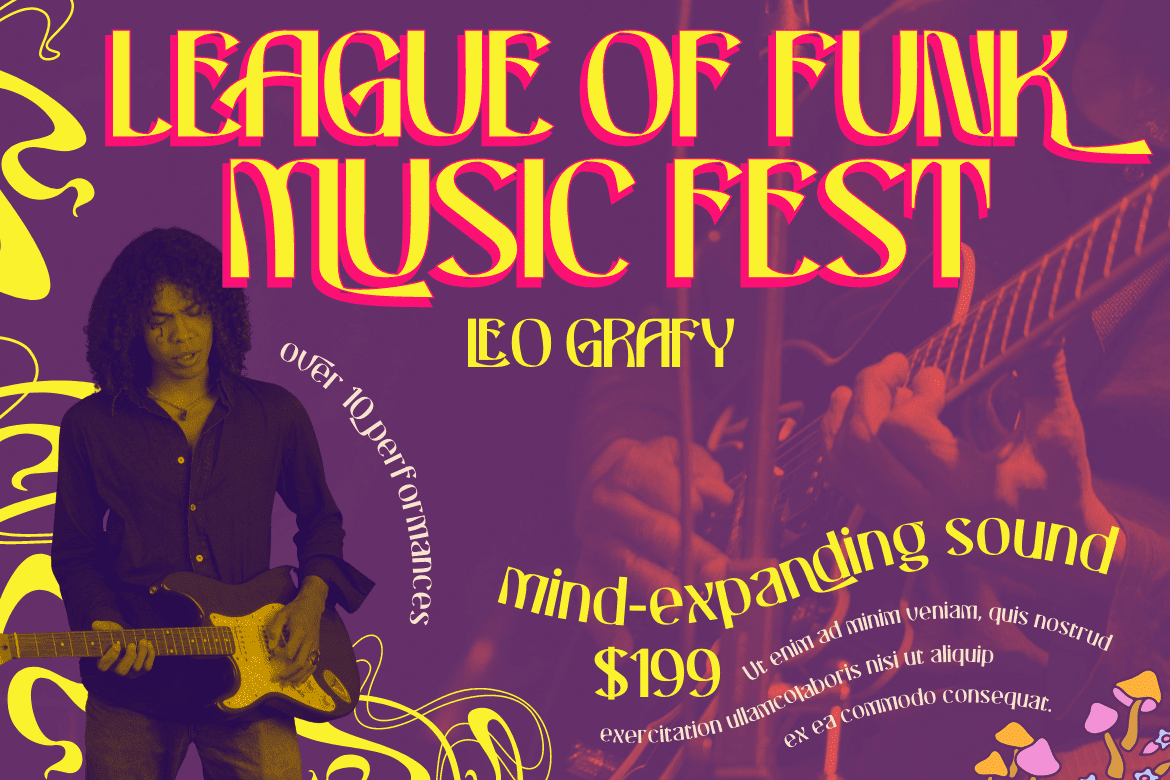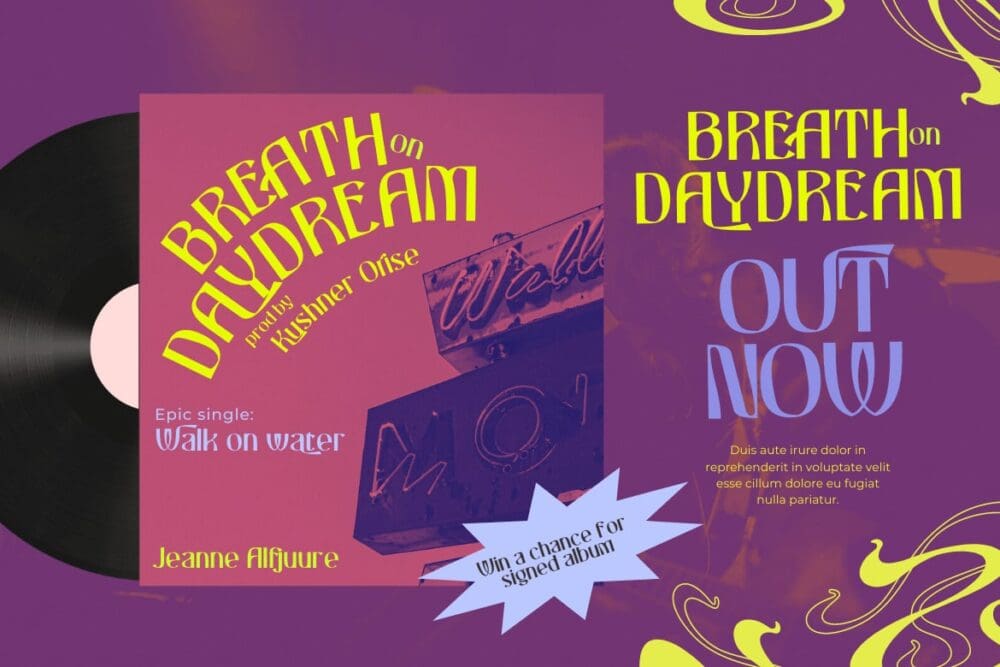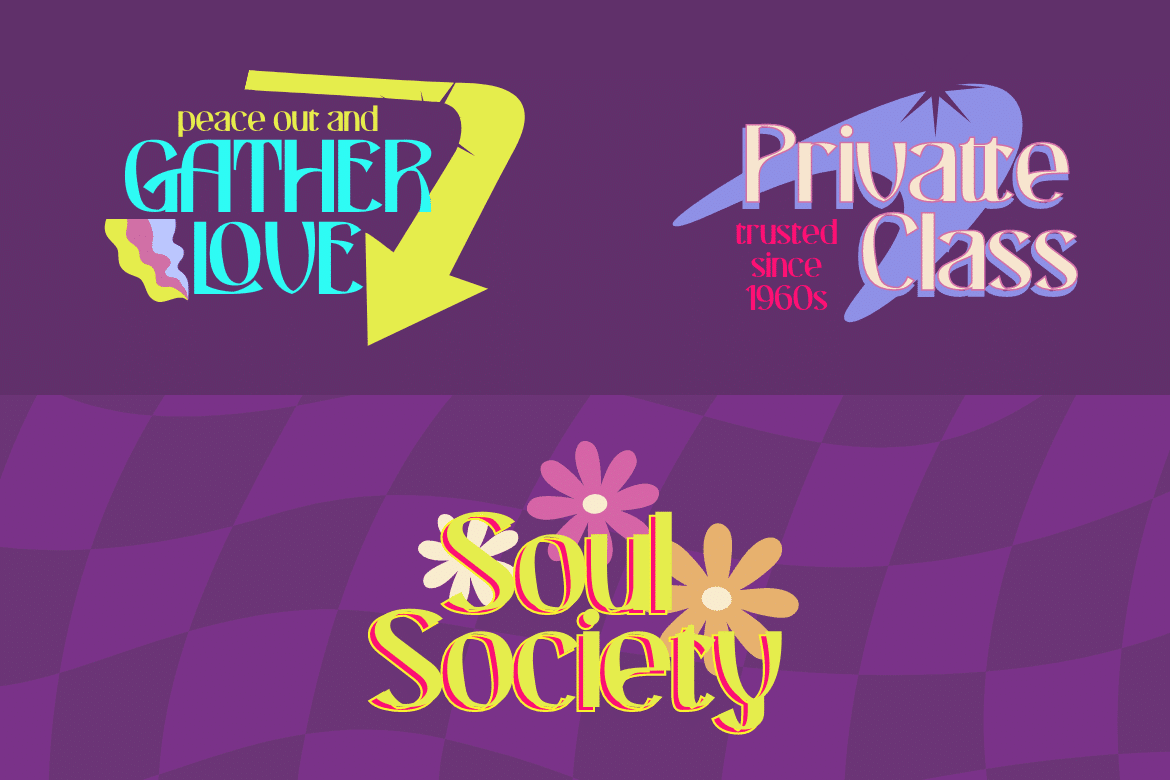
Chaslow Groovy Font
Chaslow Groovy Font. This font has a very strong and bold personality, making it perfect for any design that needs a unique touch. Thin lines are contrasted against thick ones, which makes them stand out from all other fonts. This font will give your work that extra zest! You can use it to create all kinds of designs, including logo designs, posters, flyers, and more!